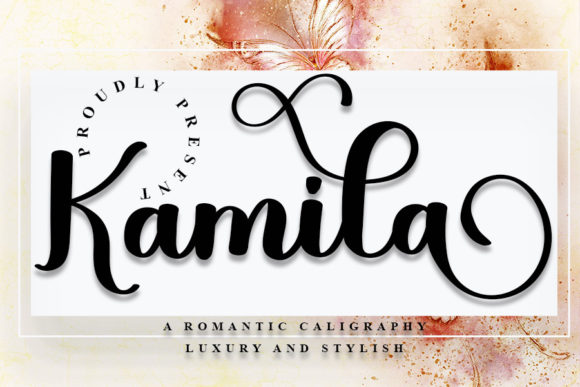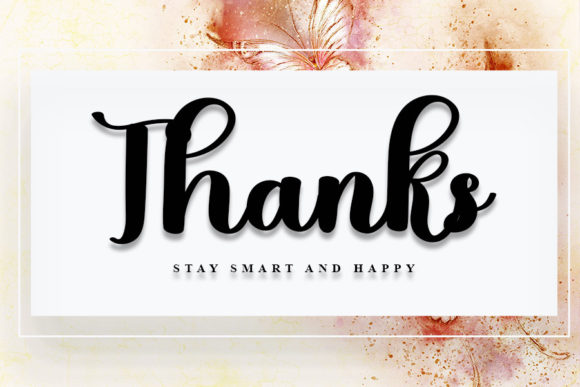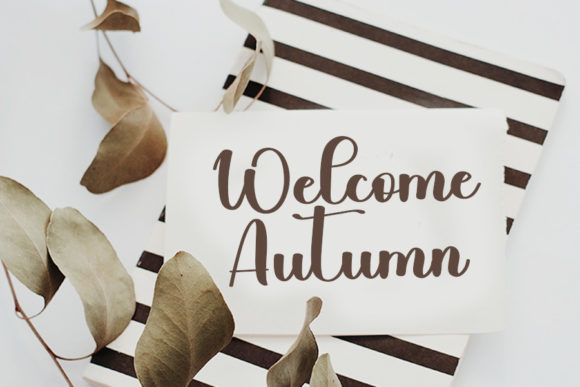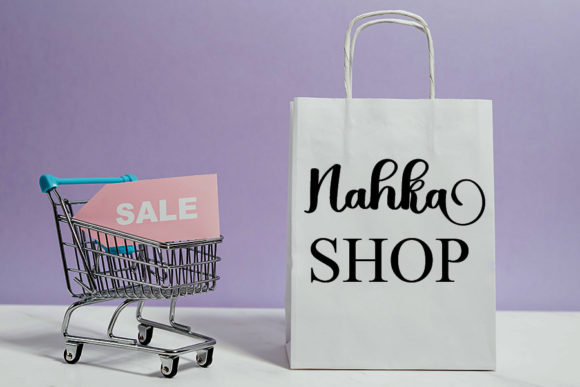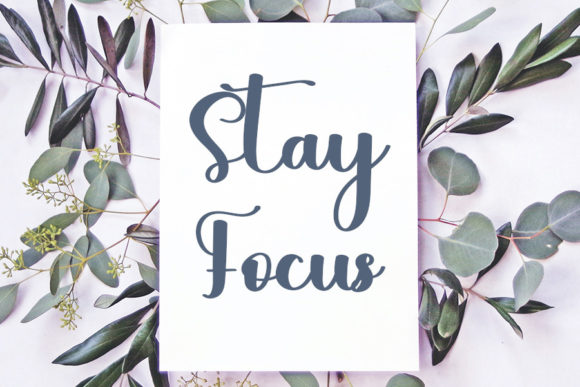
Kamila Font
About Kamila Font
Kamila is a flowing and graceful script font. Fall for its ravishing style and use it to create gorgeous wedding invitations, beautiful stationary art, eye-catching social media posts, and much more!